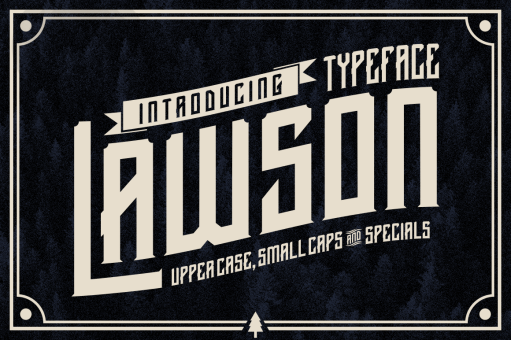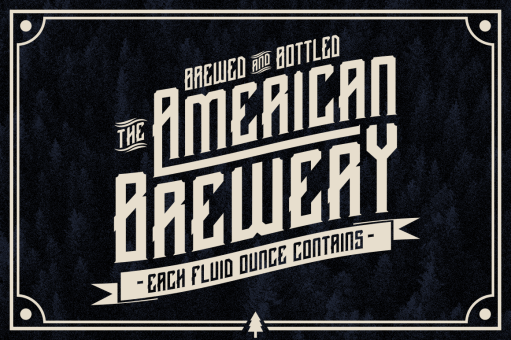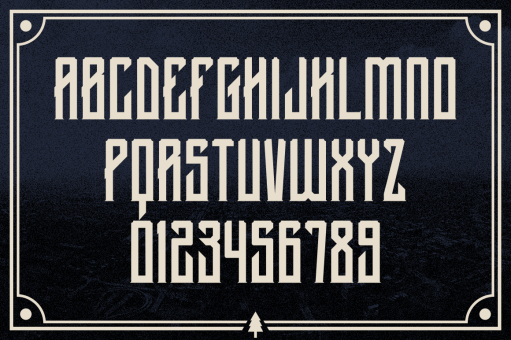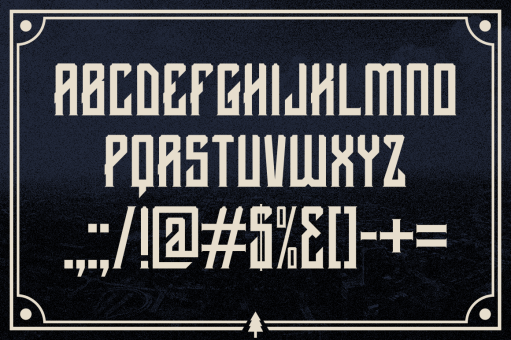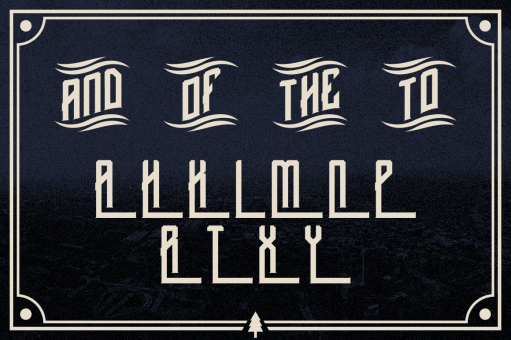
Lawson Typface
Introducing my first font Lawson Typeface. not inspired by anything, i just try & error for the first time. and now I'm trying to fix, so it becomes like this. this font good for labels name, brand name, posters, band name, etc.